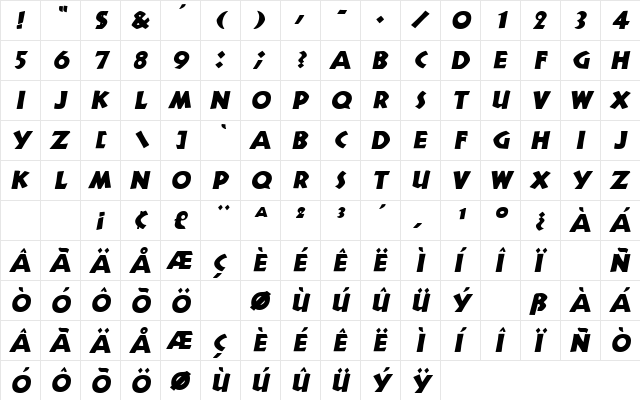
Neuland Oblique
Design Context for Neuland Typeface
Neuland is a composed and adaptable typeface that performs quietly and consistently across a wide range of design contexts. The dynamic lean of this cut emphasises speed and emphasis in any layout.
Pro Tip: Try Neuland for annotation and caption copy alongside an upright companion — the contrast in angle creates a dynamic but ordered typographic system.